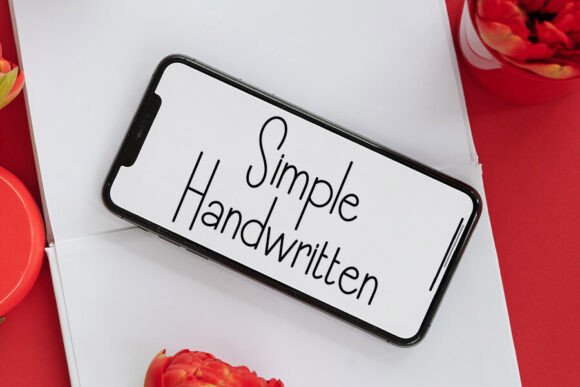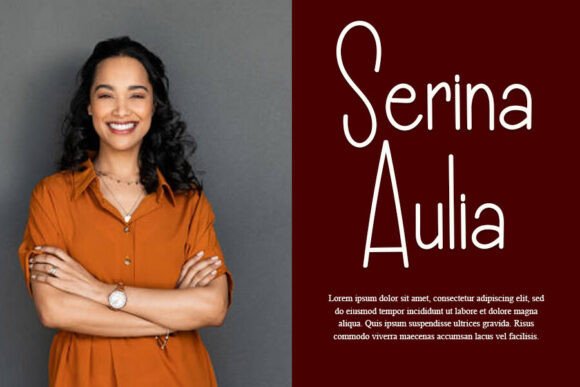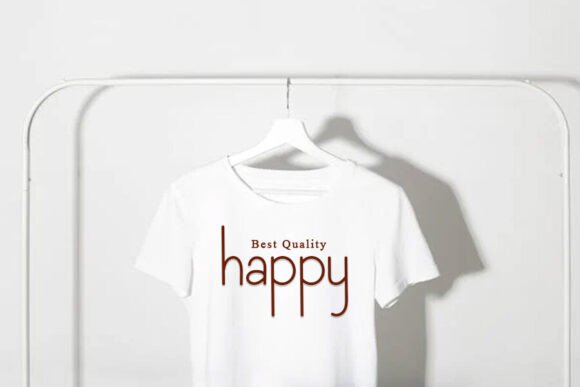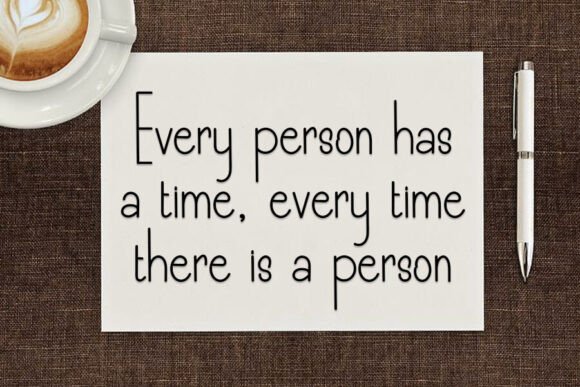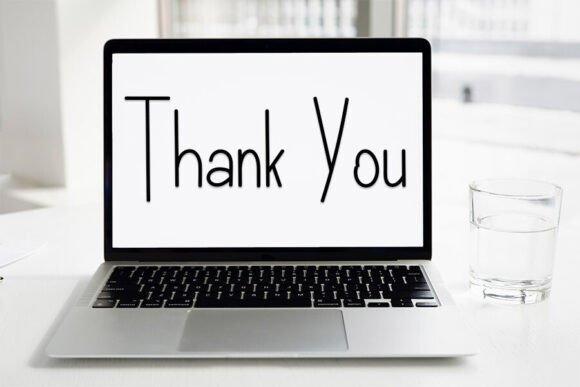
The Breakfast Font: A Sweet and Friendly Companion for Your Designs
I’ll never forget the morning I stumbled upon the Breakfast font while working on a branding project for a trendy new café. I was struggling to find the perfect handwritten font that would capture the warm and inviting atmosphere of the café, and then I saw it – Breakfast Font. It was love at first sight! ✨ The natural and unique style of this font immediately drew me in, and I knew I had found the perfect fit.
As a designer, I’m always on the lookout for fonts that can help me create stunning visuals with ease. Here’s what I love about Breakfast Font:
- ✅ Unique and eye-catching design: The Breakfast Font has a sweet and friendly vibe that’s perfect for a wide range of designs, from branding and packaging to social media graphics and more.
- ✅ Natural and handwritten feel: The font has a natural, handwritten feel that adds a touch of warmth and personality to any design.
And, like any font, it’s not perfect. Here are a few quirks to keep in mind:
- ⚠️ Limited use in formal designs: While Breakfast Font is amazing for creative and informal designs, it might not be the best fit for formal or corporate projects.
- 🤔 Some glyphs may require manual adjustment: Depending on the design and layout, some glyphs might require manual adjustment to ensure they fit perfectly.
The Story Behind Breakfast Font
While the true story behind Breakfast Font remains a mystery, it’s easy to imagine that it was created by a designer who loves mornings and good food. Perhaps they wanted to capture the warmth and coziness of a sunny breakfast morning in a font that would bring joy to designers and their clients. Whatever the inspiration, Breakfast Font is undoubtedly a gem that deserves to shine in your design projects.
| Font Name | Breakfast Font |
| Author | ONE DESIGN |
| Is Breakfast Font suitable for body text? | While Breakfast Font is beautiful, it’s a script font and might not be the best choice for long body text. It’s better suited for headings, titles, and short paragraphs. |